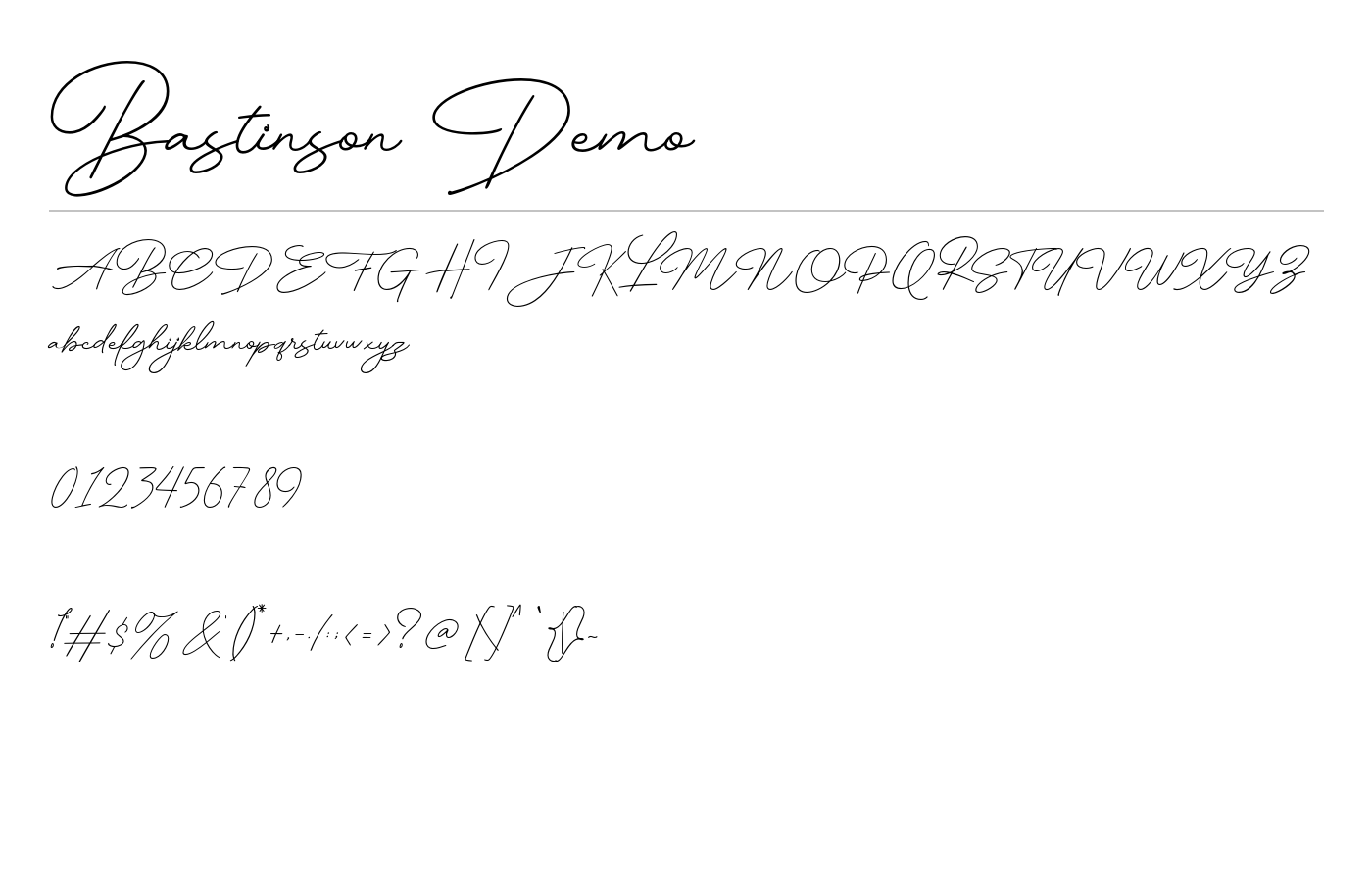
Bastinson Demo is a delicate and elegant script font characterized by its thin, flowing strokes and smooth, handwritten style. Its fine lines and graceful letterforms give it a sophisticated yet approachable feel, making it ideal for wedding invitations, branding, and stylish editorial use where a touch of refinement and personal charm is desired. This font works best in large sizes, such as headlines or logos, where its intricate details can truly shine.
Bastinson Demo Font